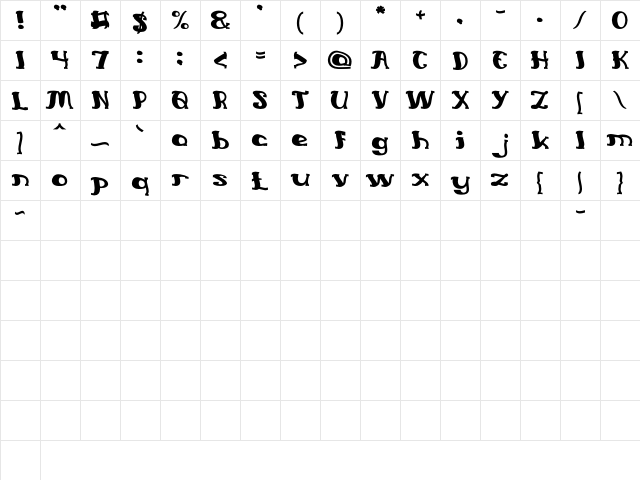
Everlasting Song Regular Font Preview
Everlasting Song Regular
Everlasting Song Regular Font Details
Design Context for Everlasting Song Typeface
Everlasting Song is a composed and adaptable typeface that performs quietly and consistently across a wide range of design contexts.